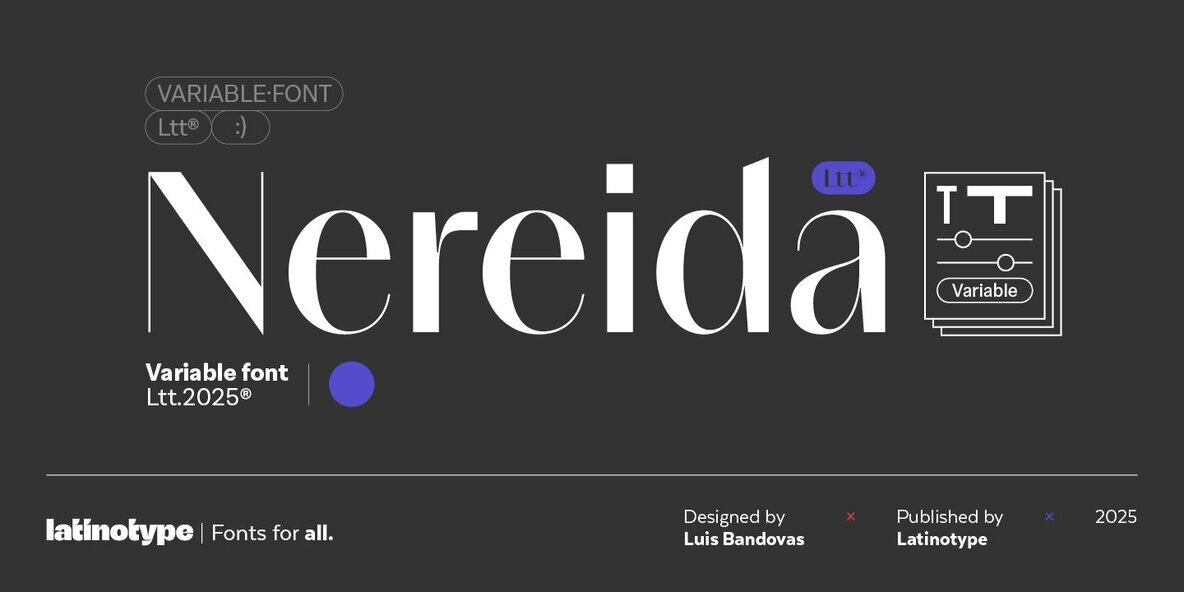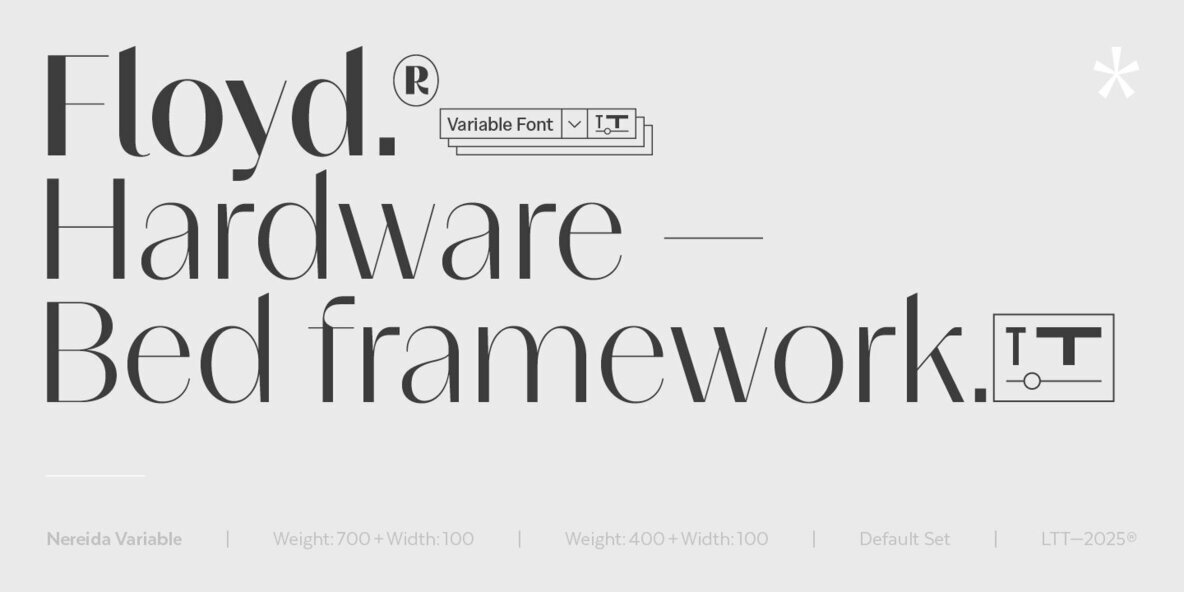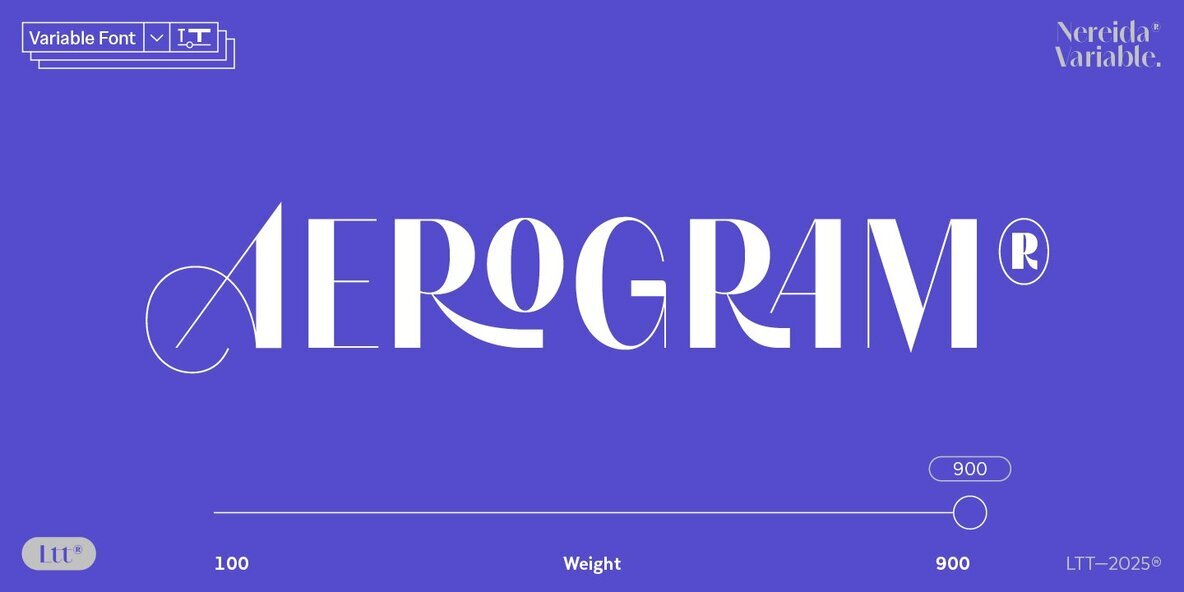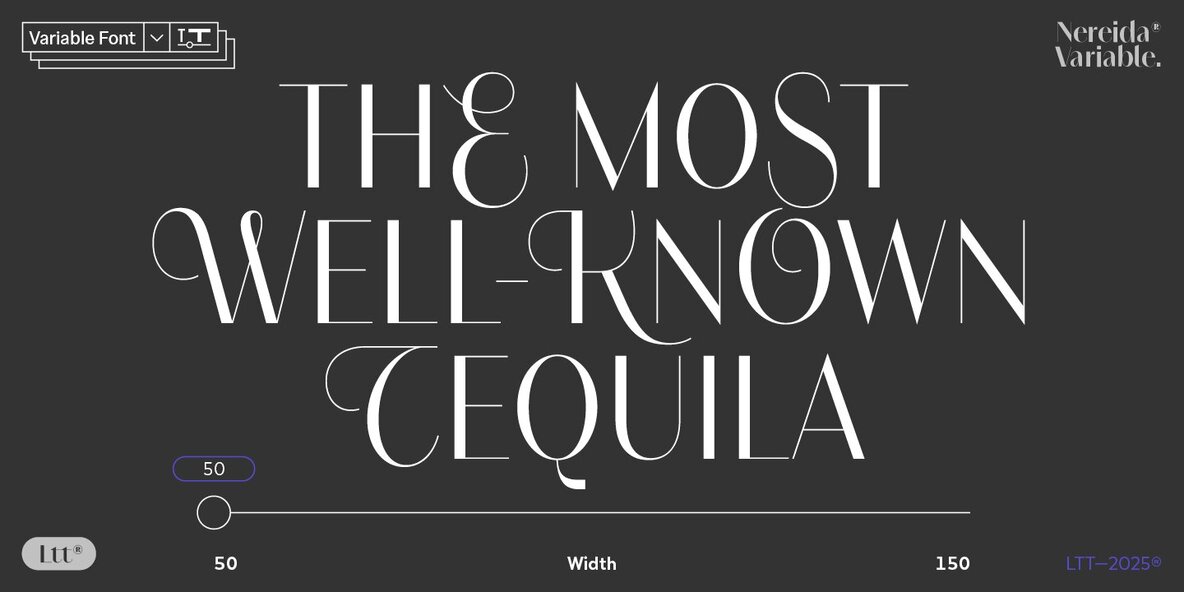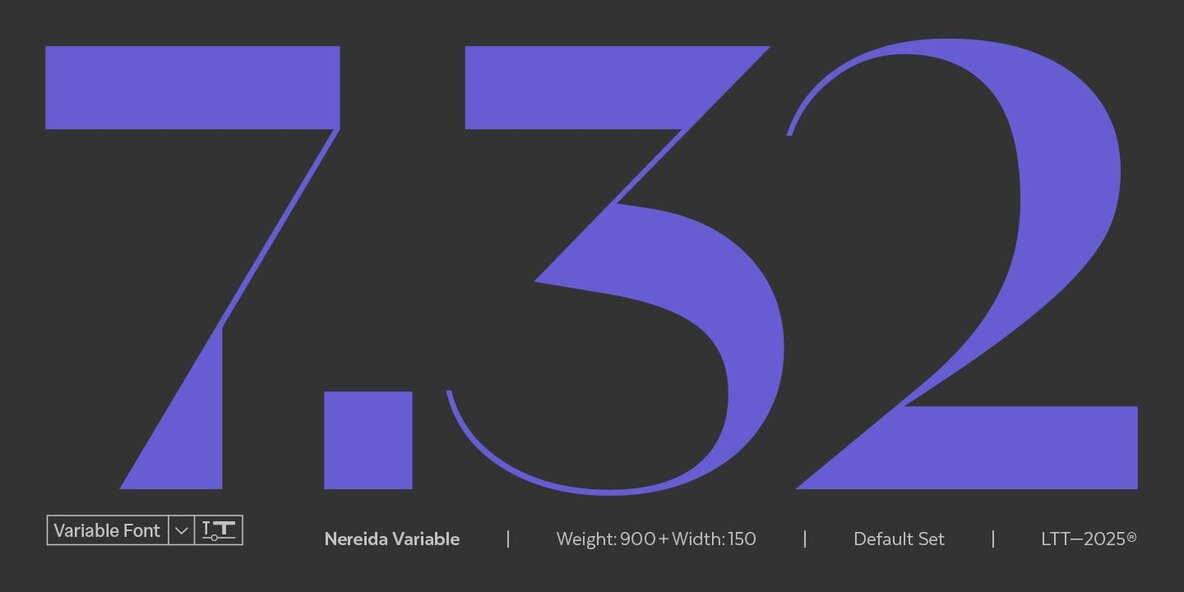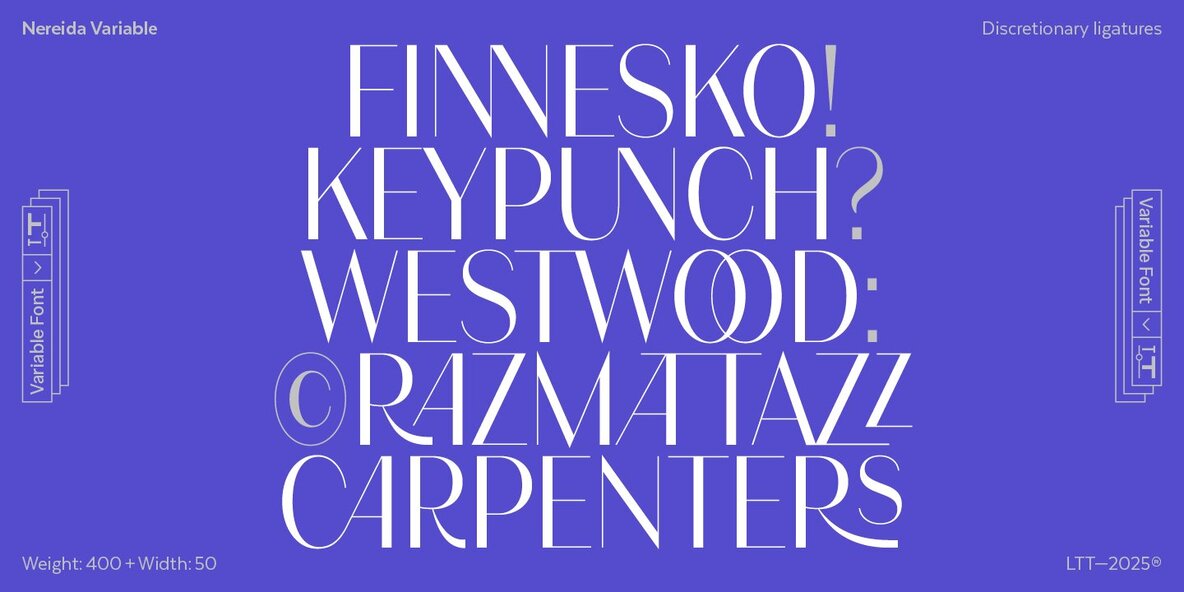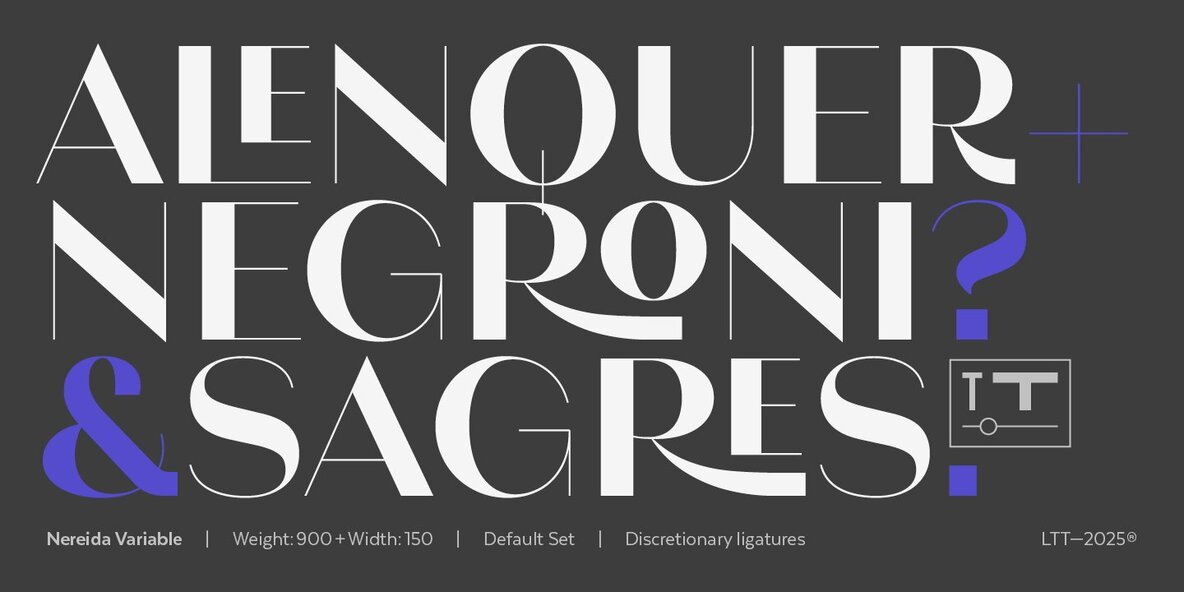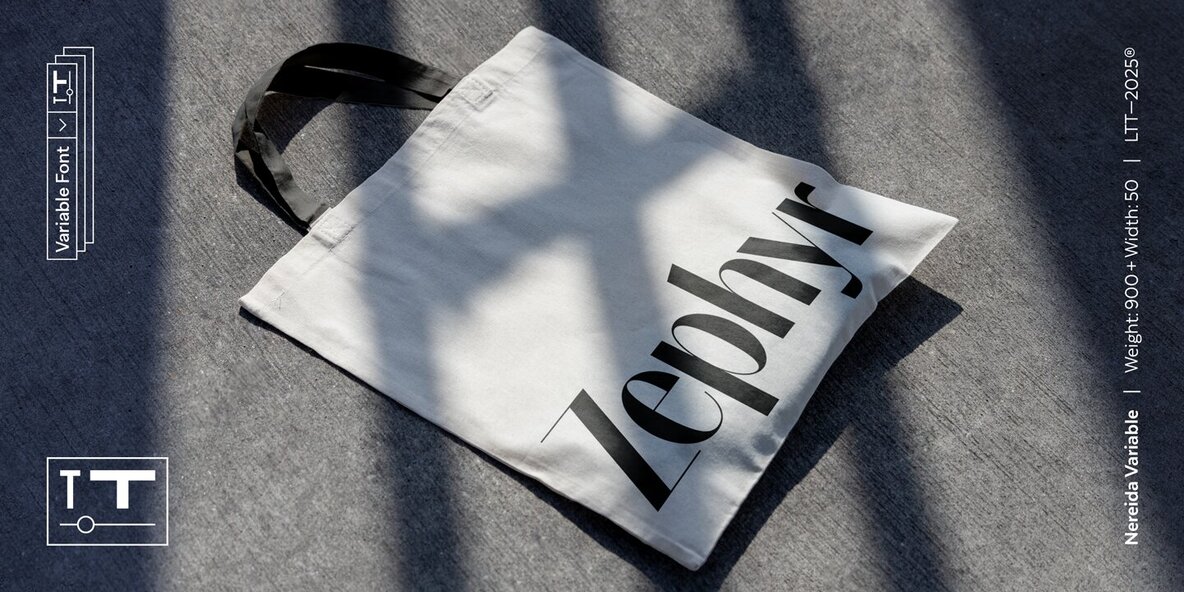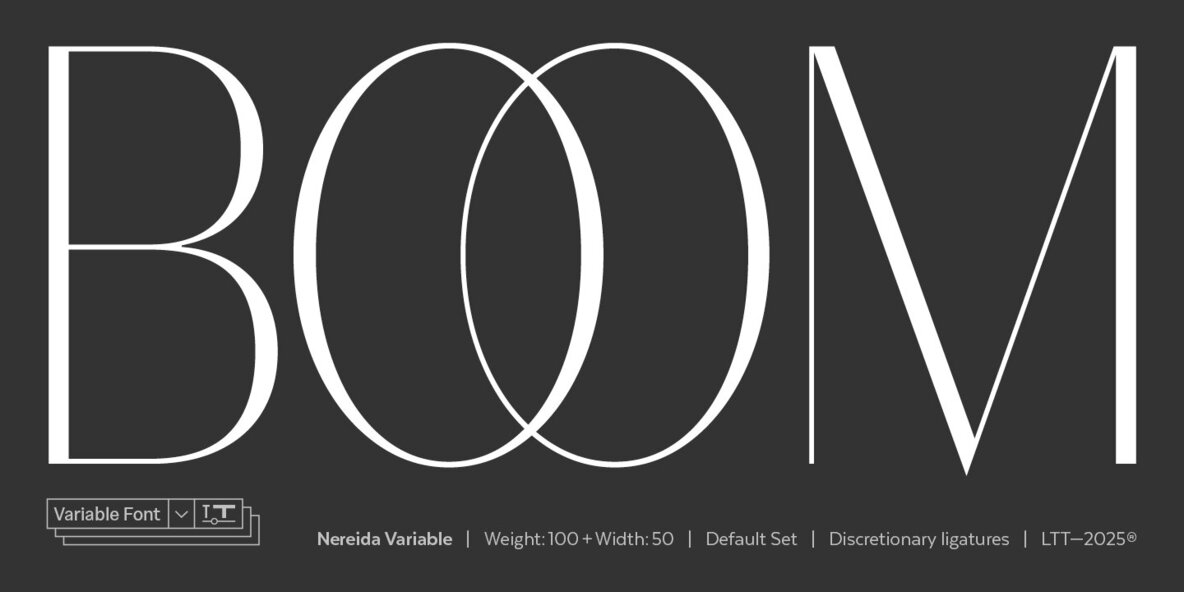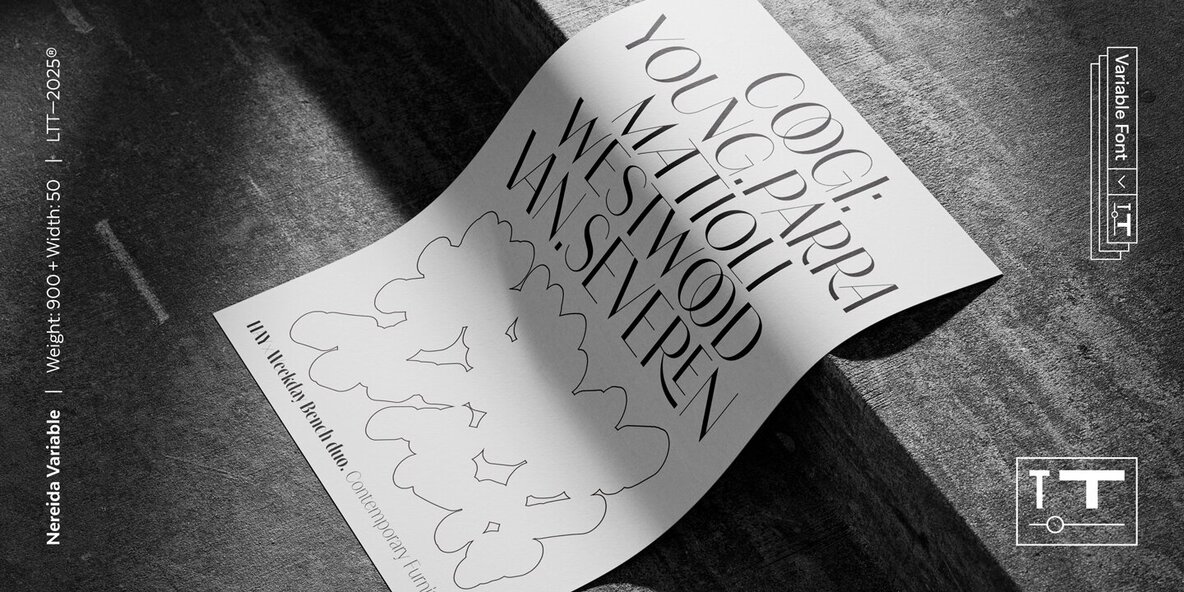
Nereida Variable Font
Nereida Variable
Nereida Variable is a delicate, luminous and dainty typeface endowed with an expressive and versatile personality. Its high-contrast design positions it as the preferred choice for elegant and creative typographic compositions. Nereida Variable stands out for a generous x-height structure, thus ensuring an exceptional readability in paragraphs of moderate length. It distinguishes itself with delicately crafted terminals and a set of attractive ligatures and initial letters that expand their ranges of use. Nereida Variable is a distinctive typographic experience for magazines, headlines, logos, packaging and beauty products. It offers the unique possibility of transmitting messages with subtlety in short words and with force in longer text compositions. Each stroke and curve of Nereida Variable contributes to creating a unique visual experience, adding a touch of elegance and creativity to any project.